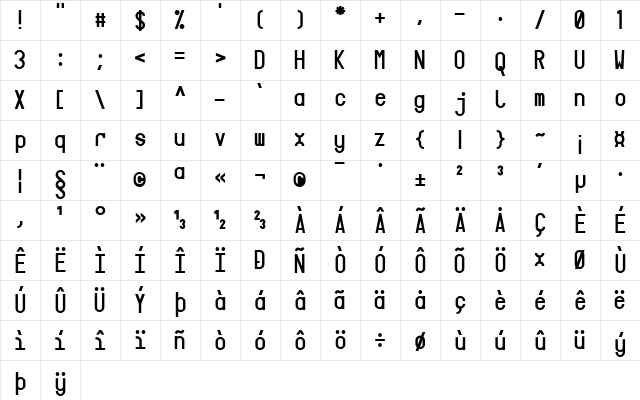
Targa Regular
Foundry: studio kmzero
Designer: Cosimo Lorenzo Pancini
Design Context for Targa
Targa is a composed and adaptable typeface that performs quietly and consistently across a wide range of design contexts.